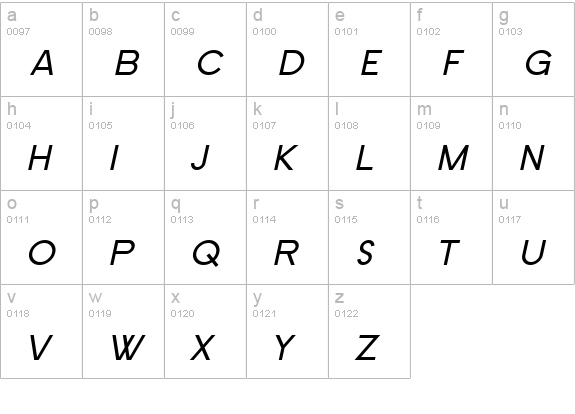
SF Old Republic SC Italic Font Details
SF Old Republic SC Italic is a distinctive, italic variant in the SF typeface family \xE2\x80\x94 well suited to design and typography projects.
SF Old Republic SC Italic is a stunningly elegant font that effortlessly blends sophistication with a touch of antiquity. This font is the epitome of timeless beauty, capturing the essence of the Old Republic era in science fiction. Its italicized form adds a touch of graceful slant, giving your text a sense of movement and dynamism. The intricate detailing of SF Old Republic SC Italic is truly awe-inspiring. Each letter is meticulously crafted, showcasing delicate curves and fine lines that speak volumes about the designer's dedication to perfection. This font exudes a sense of grandeur and majesty, making it the perfect choice for projects that demand an air of regality and prestige. What makes SF Old Republic SC Italic even more remarkable is the fact that it is freely available to download at FontsMarket.com. Yes, you read that right! This exquisite font can be yours without spending a single penny. Whether you're a professional designer looking to add a touch of elegance to your creations or an enthusiast searching for a font that stands out, SF Old Republic SC Italic is the perfect choice. With its timeless appeal and effortless charm, SF Old Republic SC Italic is a font that will undoubtedly elevate your designs to new heights. Its versatility makes it suitable for a wide range of projects, from wedding invitations to book covers, from logo designs to branding materials. This font is bound to leave a lasting impression on anyone who lays eyes on it. So why wait? Head over to FontsMarket.com and download SF Old Republic SC Italic today. Embrace the beauty of this font and let it transform your creations into works of art. Experience the freedom of creativity with SF Old Republic SC Italic, and watch as your designs come to life with unparalleled elegance.